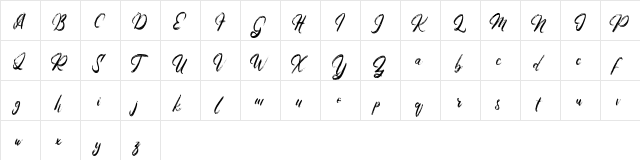
Arlaya FREE Regular
Design Context for Arlaya FREE Typeface
Arlaya FREE is a composed and adaptable typeface that performs quietly and consistently across a wide range of design contexts.